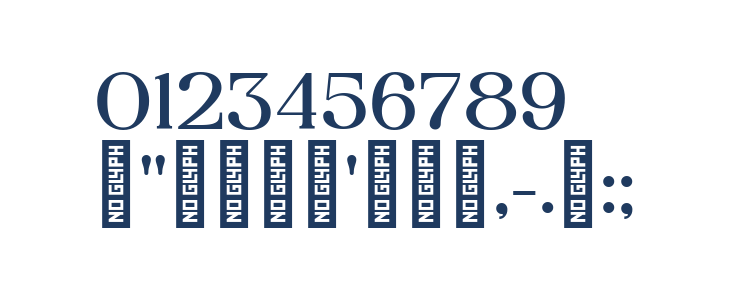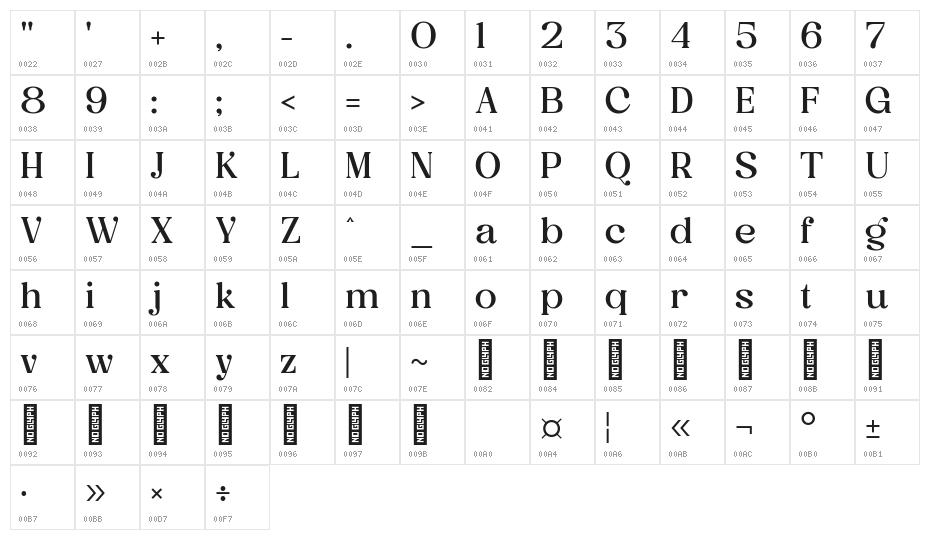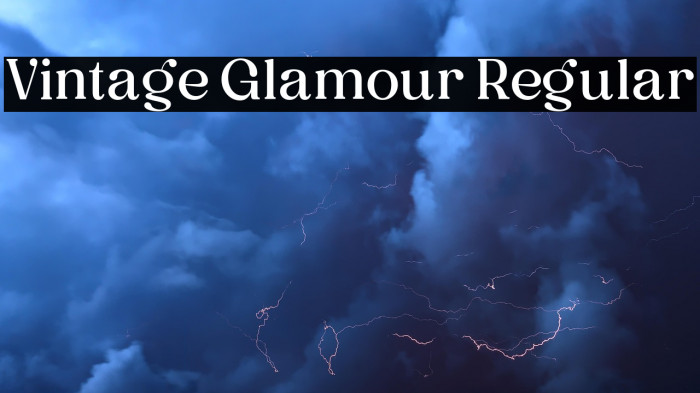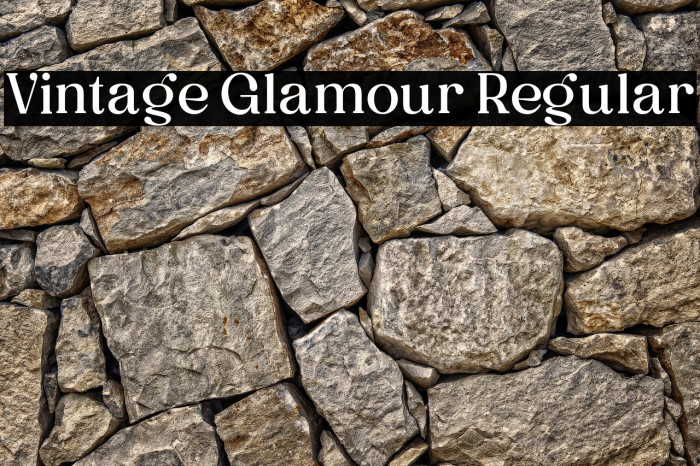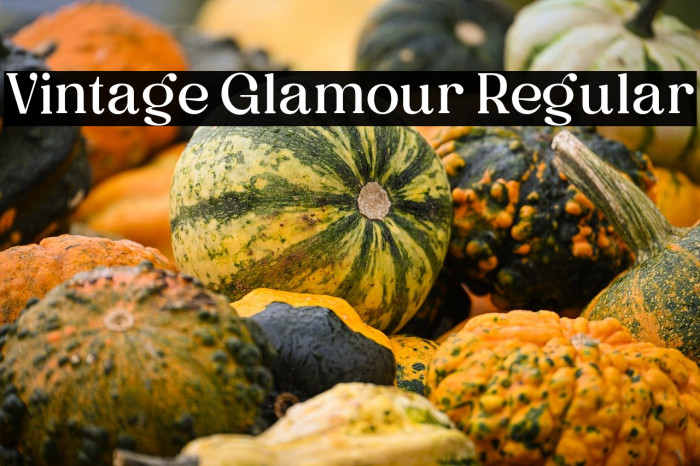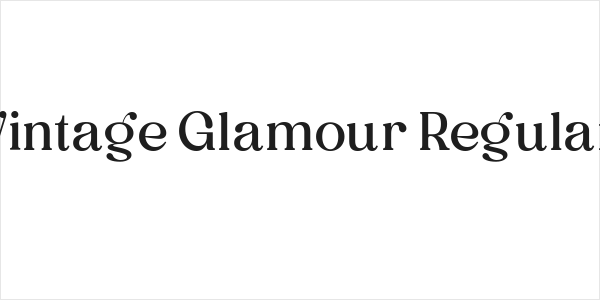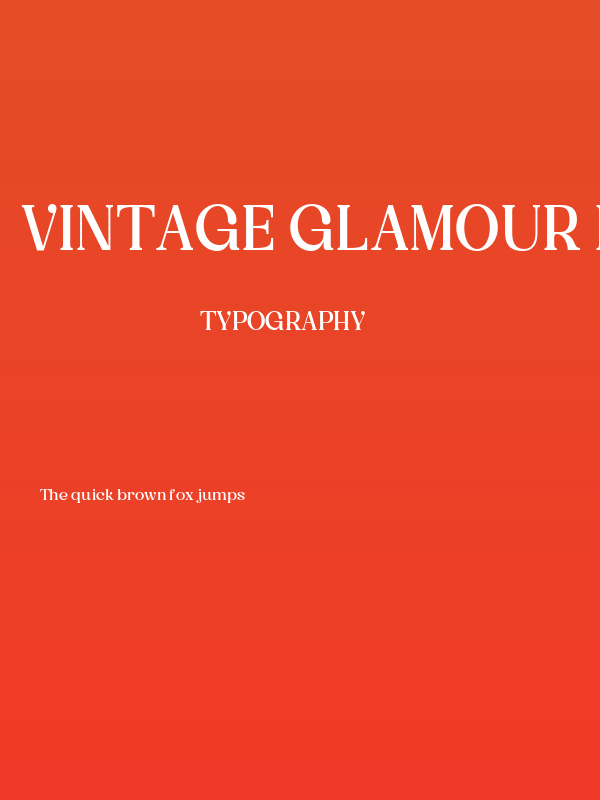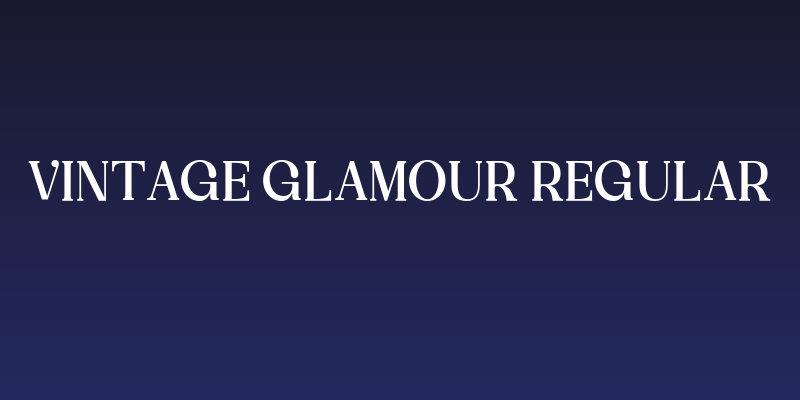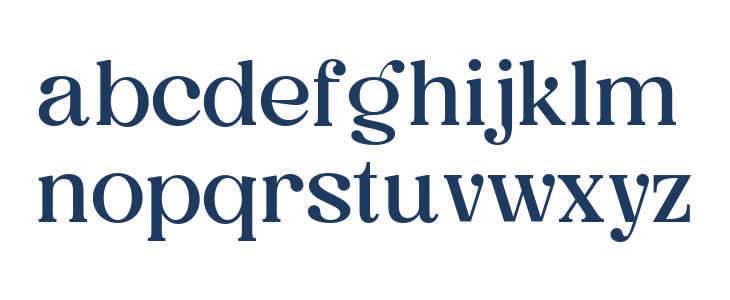
Vintage Glamour Regular Font
Vintage Glamour Regular Description
This font exudes a classic elegance with its refined serif style, characterized by its high contrast between thick and thin strokes. The serifs are pronounced, adding a touch of sophistication and timeless appeal. The uppercase letters are bold and commanding, while the lowercase letters maintain a graceful flow. The numerals are clear and distinct, ensuring readability. Special characters are thoughtfully designed to complement the overall aesthetic. This font is perfect for projects that require a touch of vintage glamour and sophistication.
| Use Case | Headlines, Logos, Editorial design |
| Proposed Projects | Ideal for wedding invitations, luxury branding, editorial design, and high-end product packaging. |